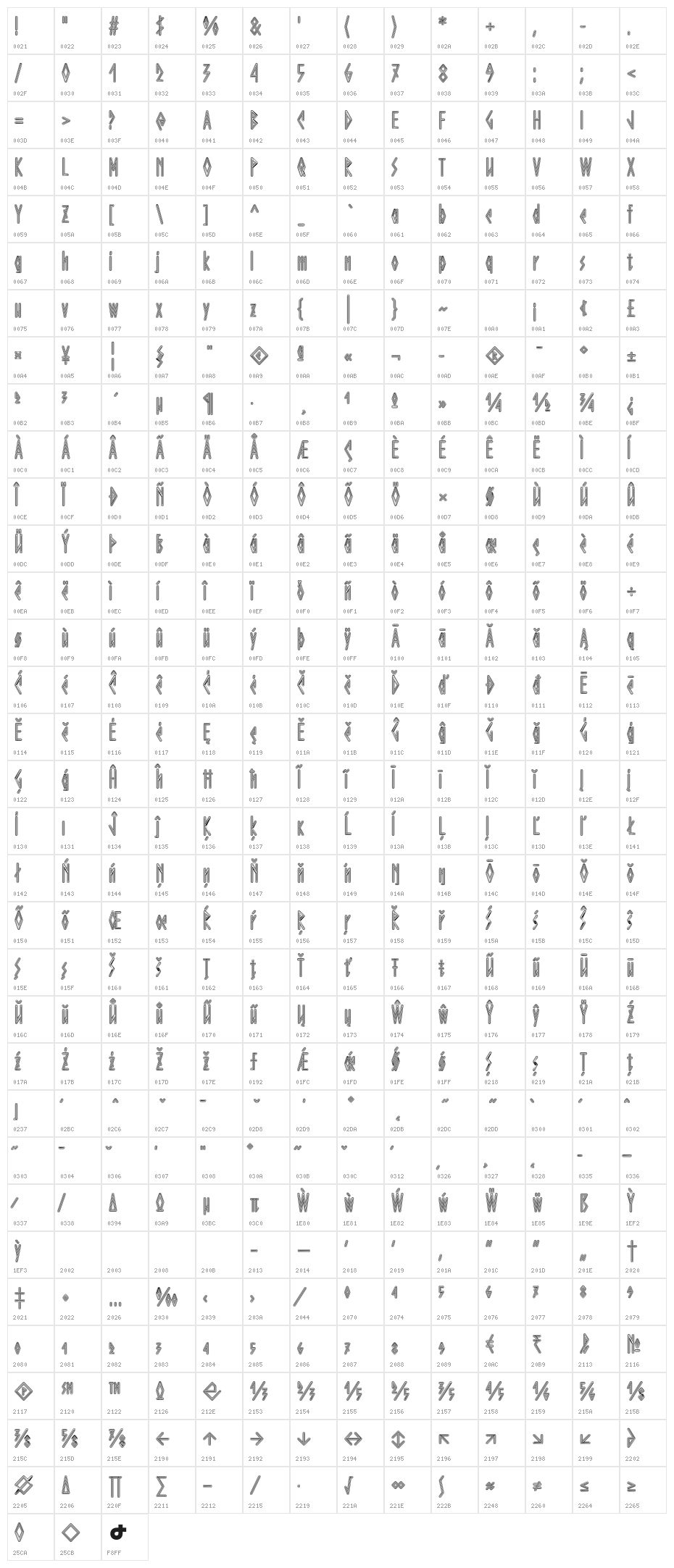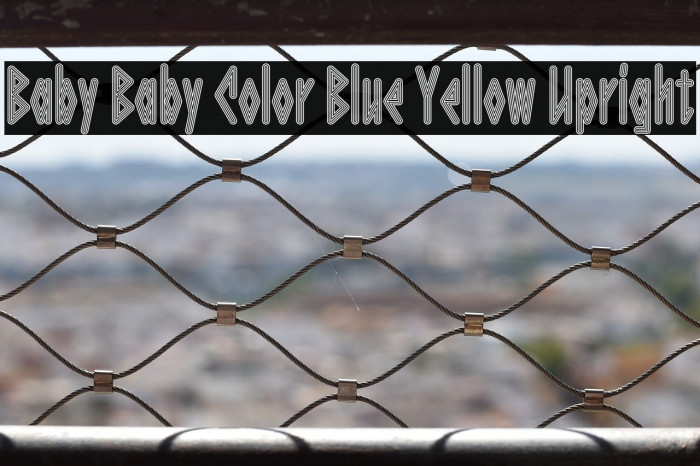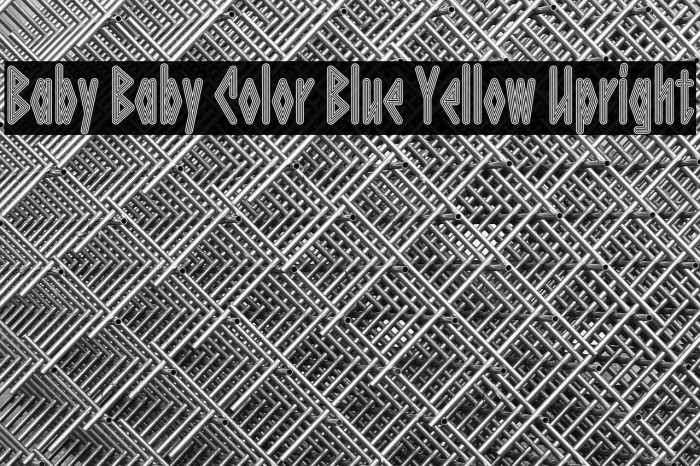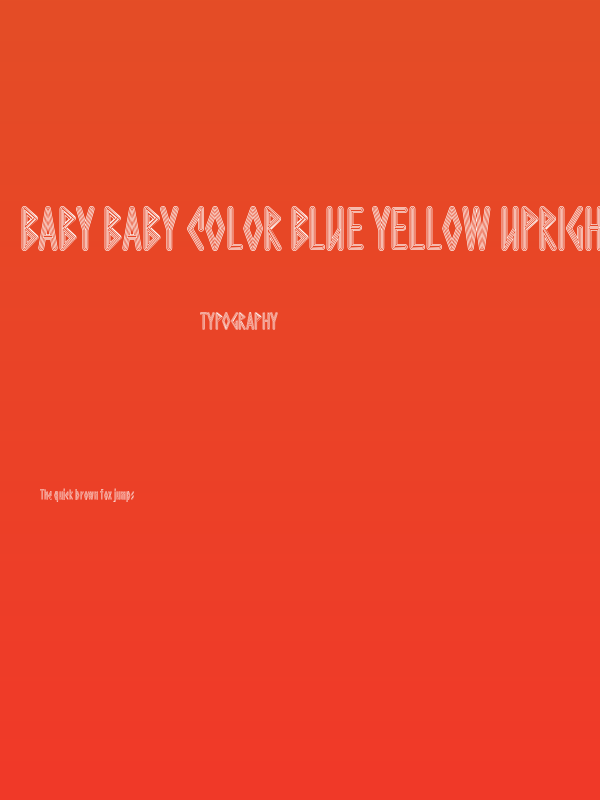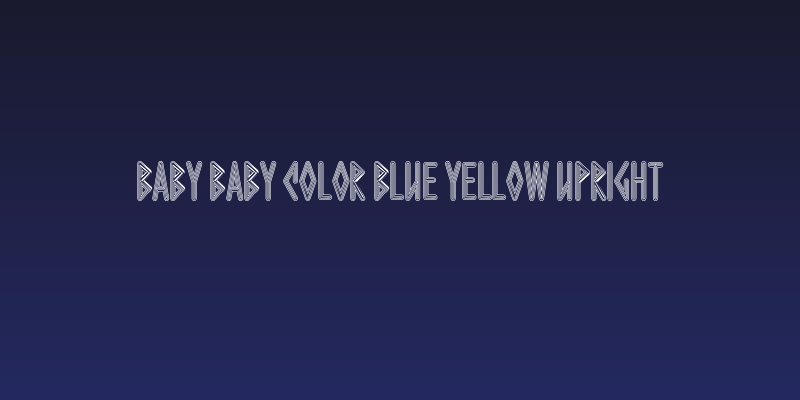
Baby Baby Color Blue Yellow Upright Font
Baby Baby Color Blue Yellow Upright Description
This font features a unique, decorative style with a geometric, outlined design. Each character is composed of multiple parallel lines that create a sense of depth and dimension. The uppercase and lowercase letters maintain a consistent height, contributing to a uniform appearance. The numbers and special characters follow the same design principles, ensuring a cohesive look across all elements. The font's playful and modern aesthetic makes it ideal for creative projects that require a bold and eye-catching typeface.
| Proposed Projects | Ideal for posters, branding, packaging, and any project needing a standout, artistic typeface. |